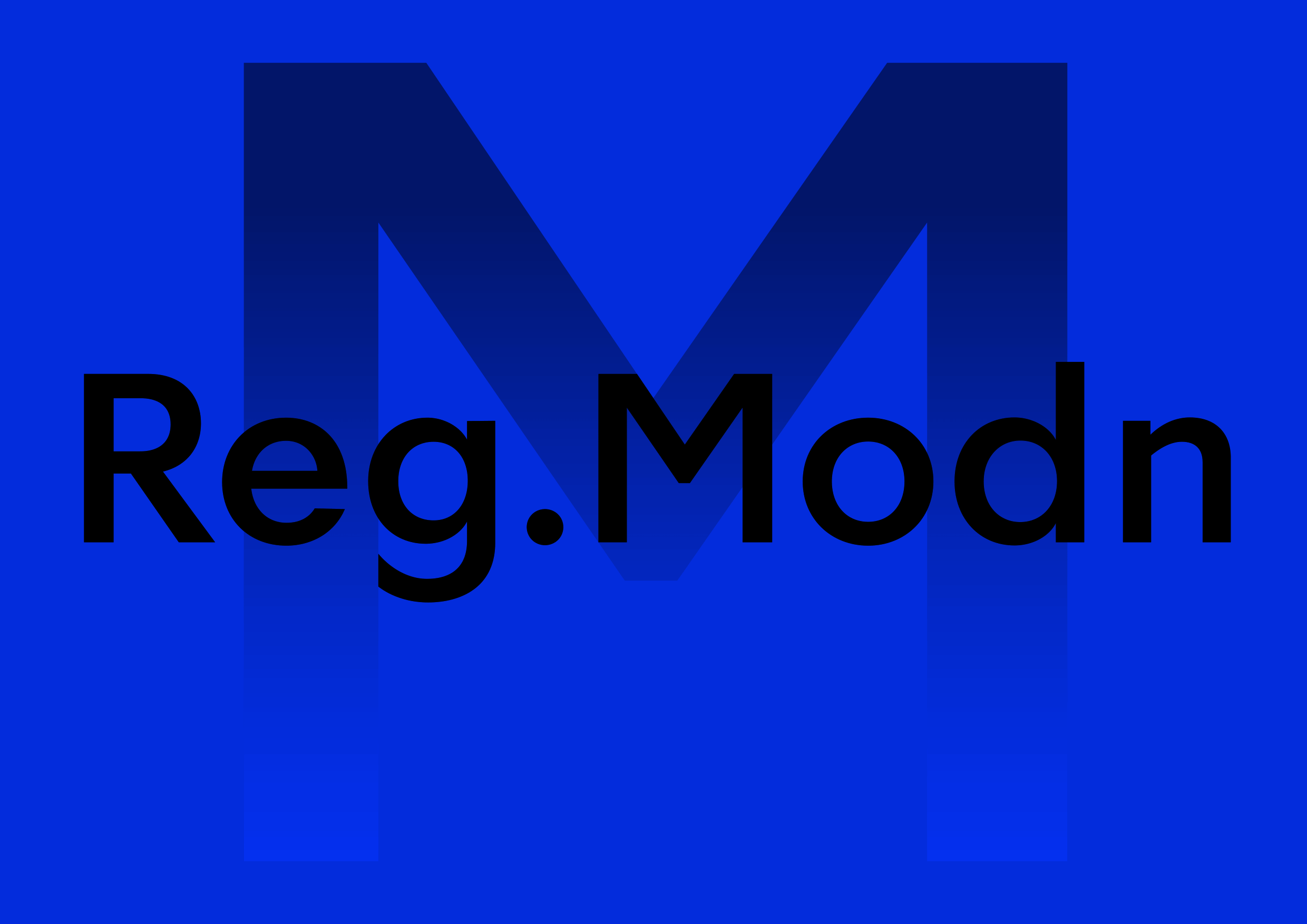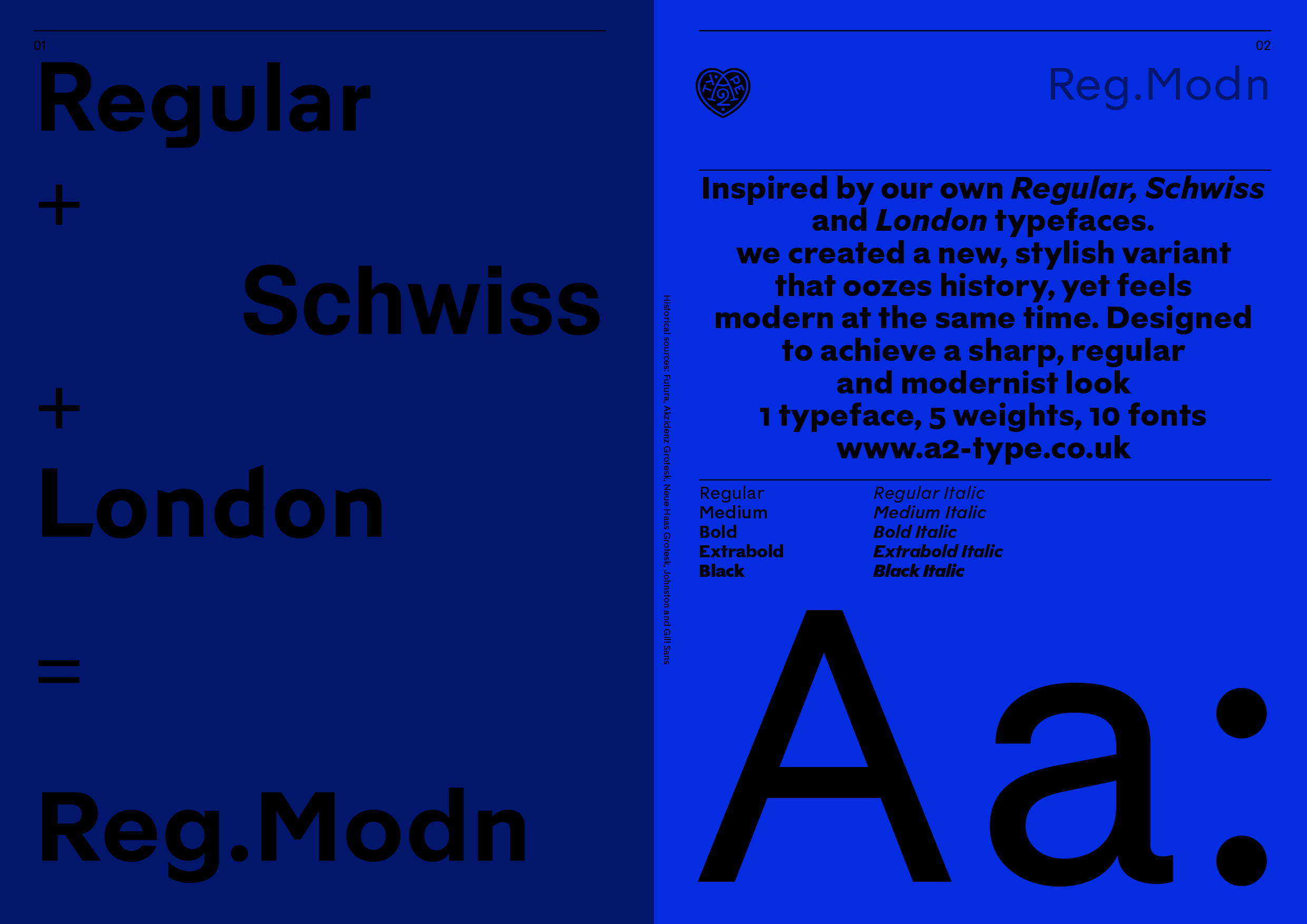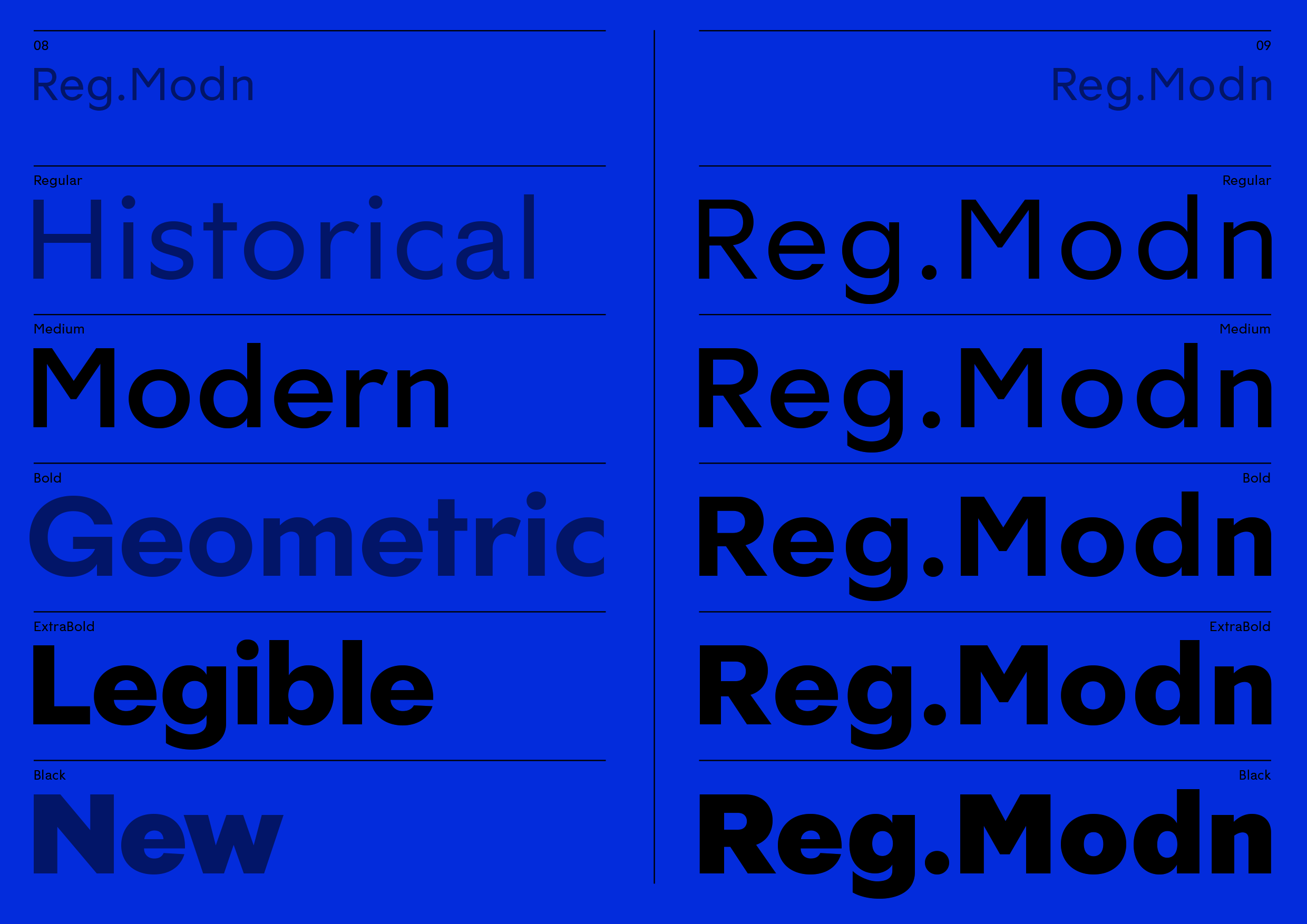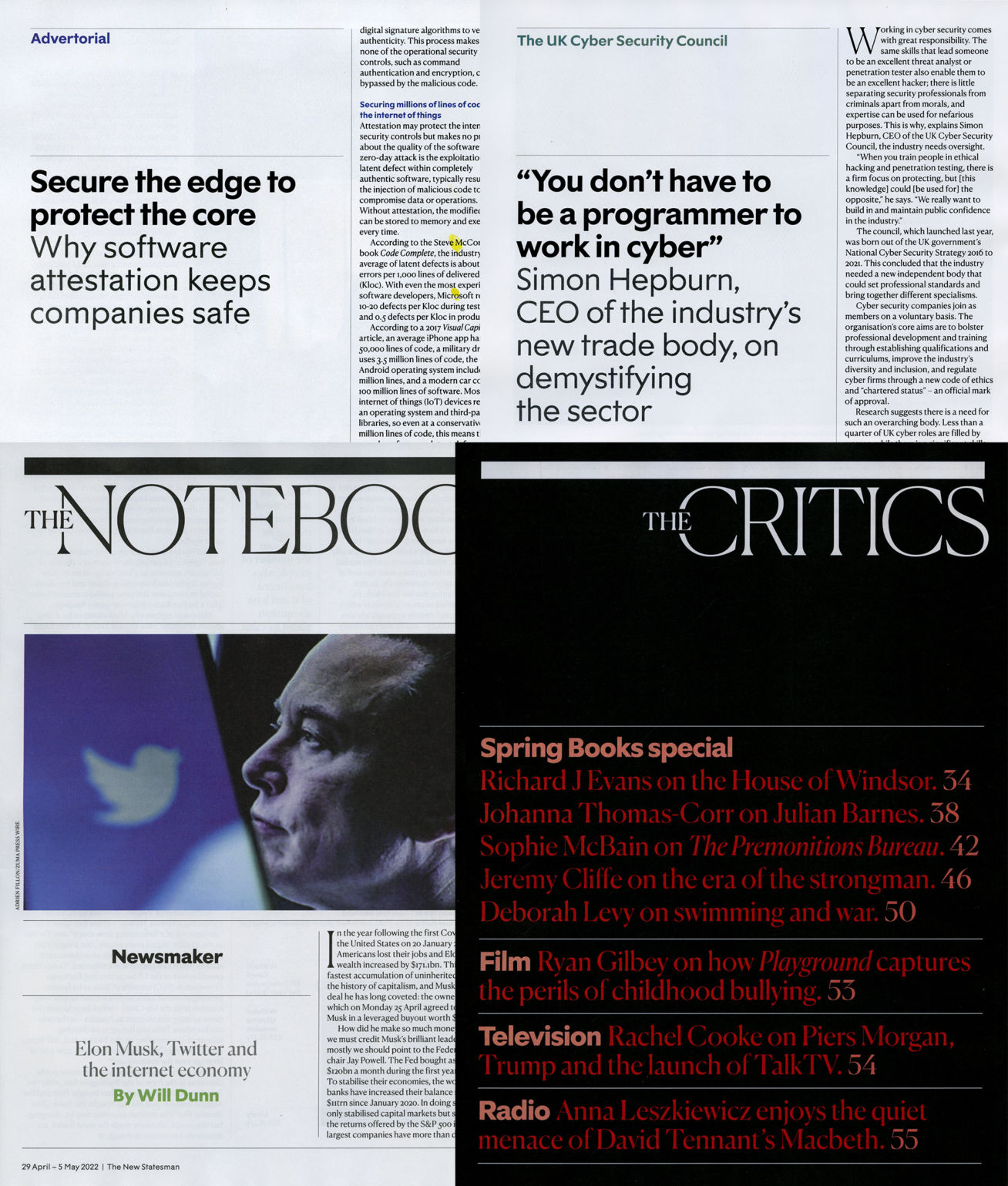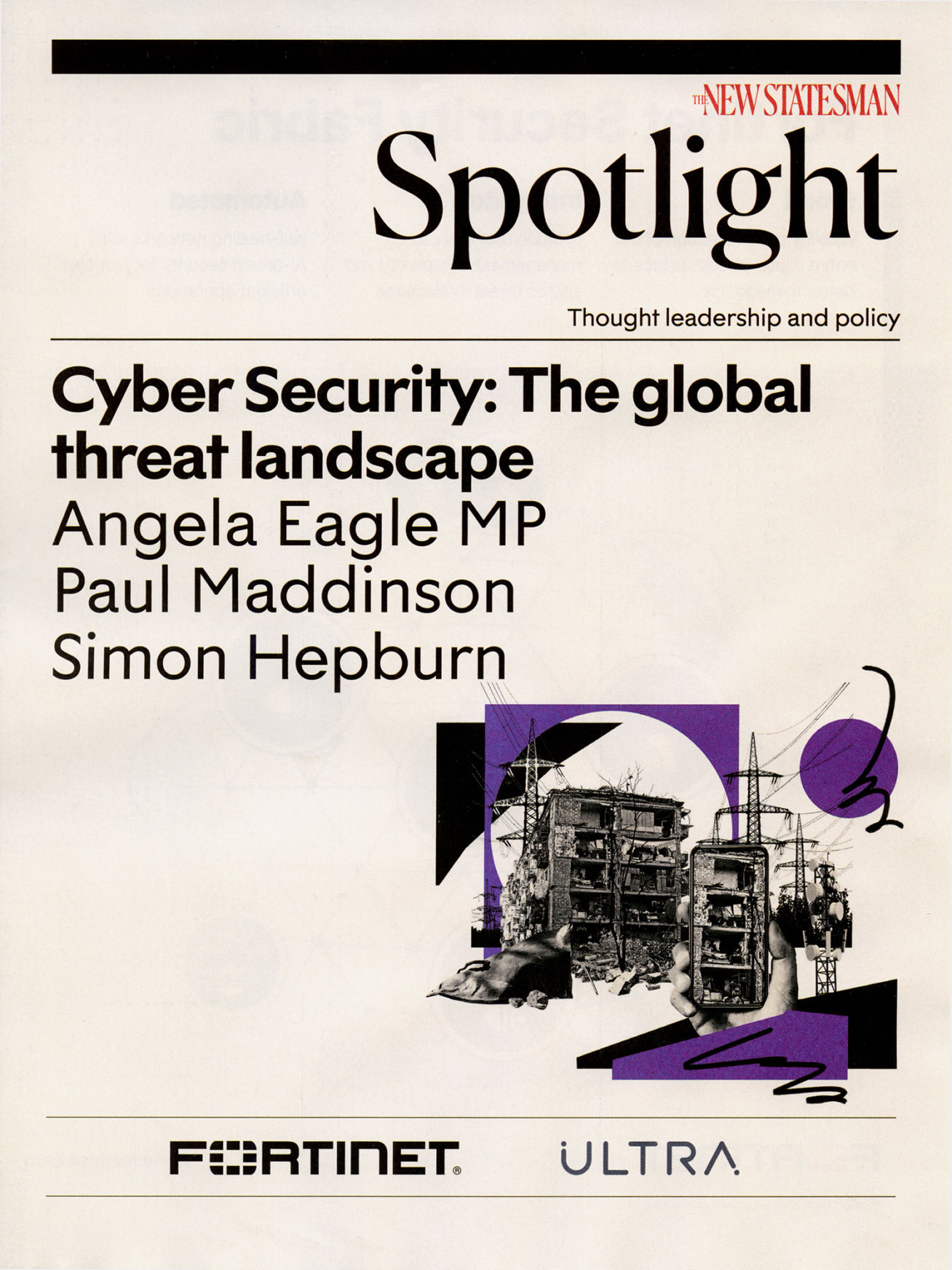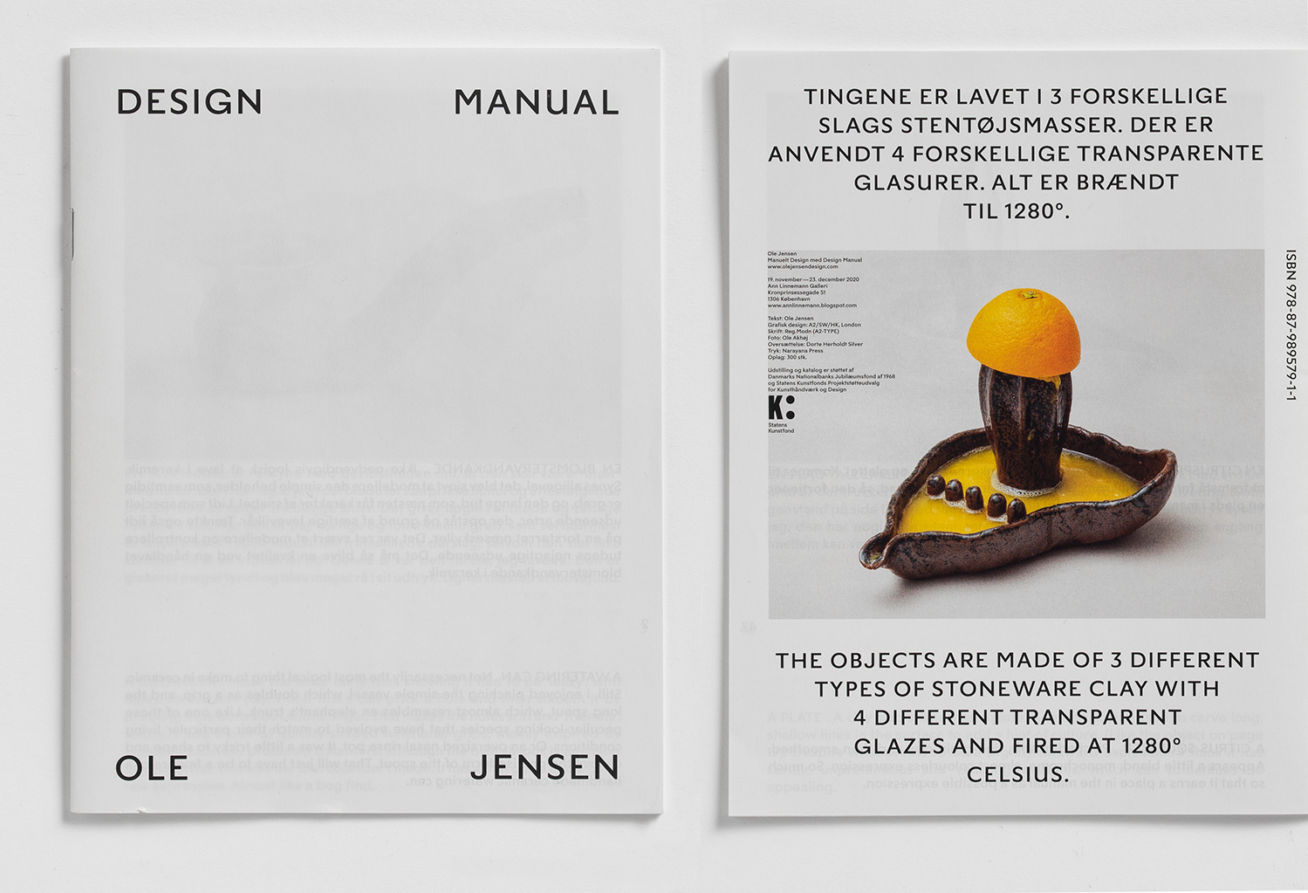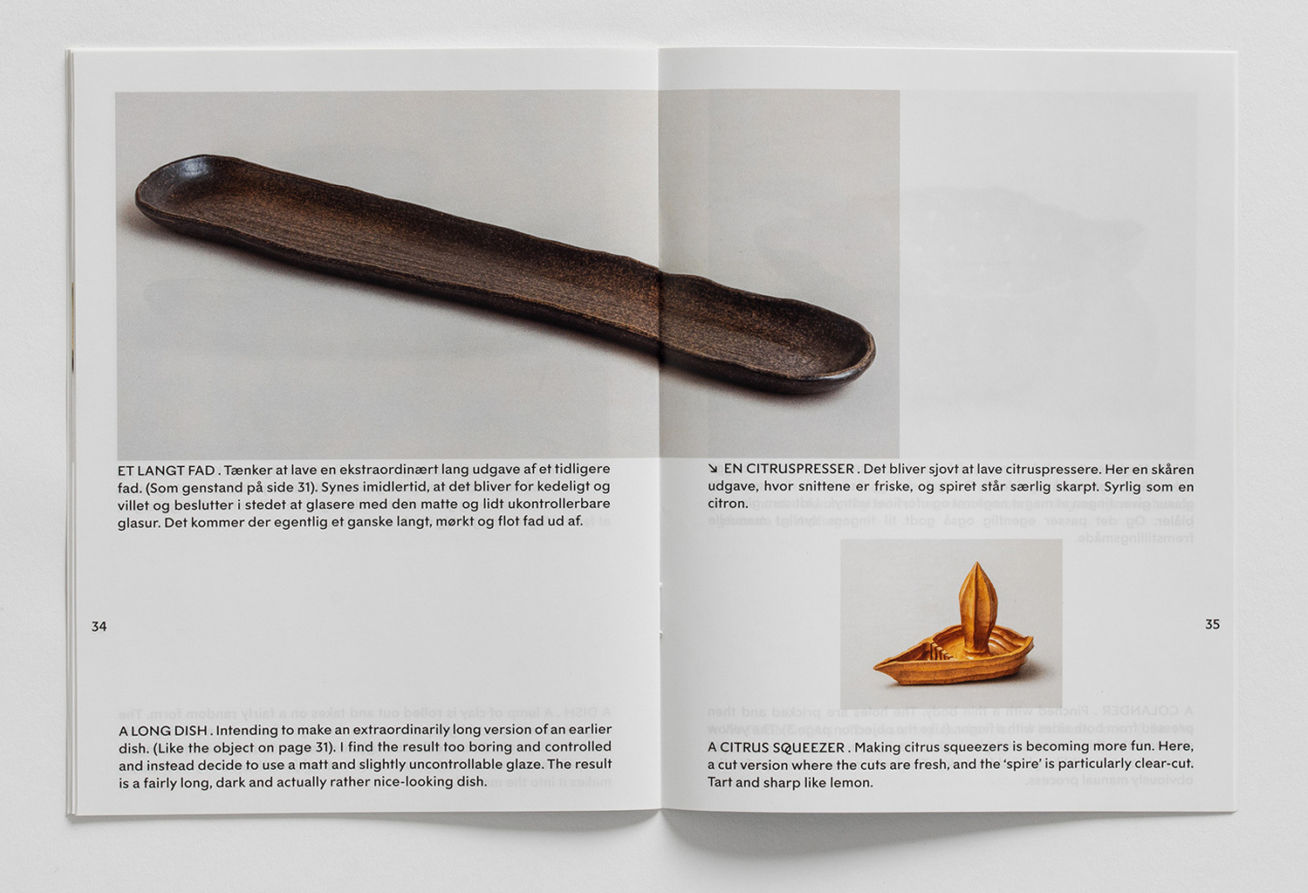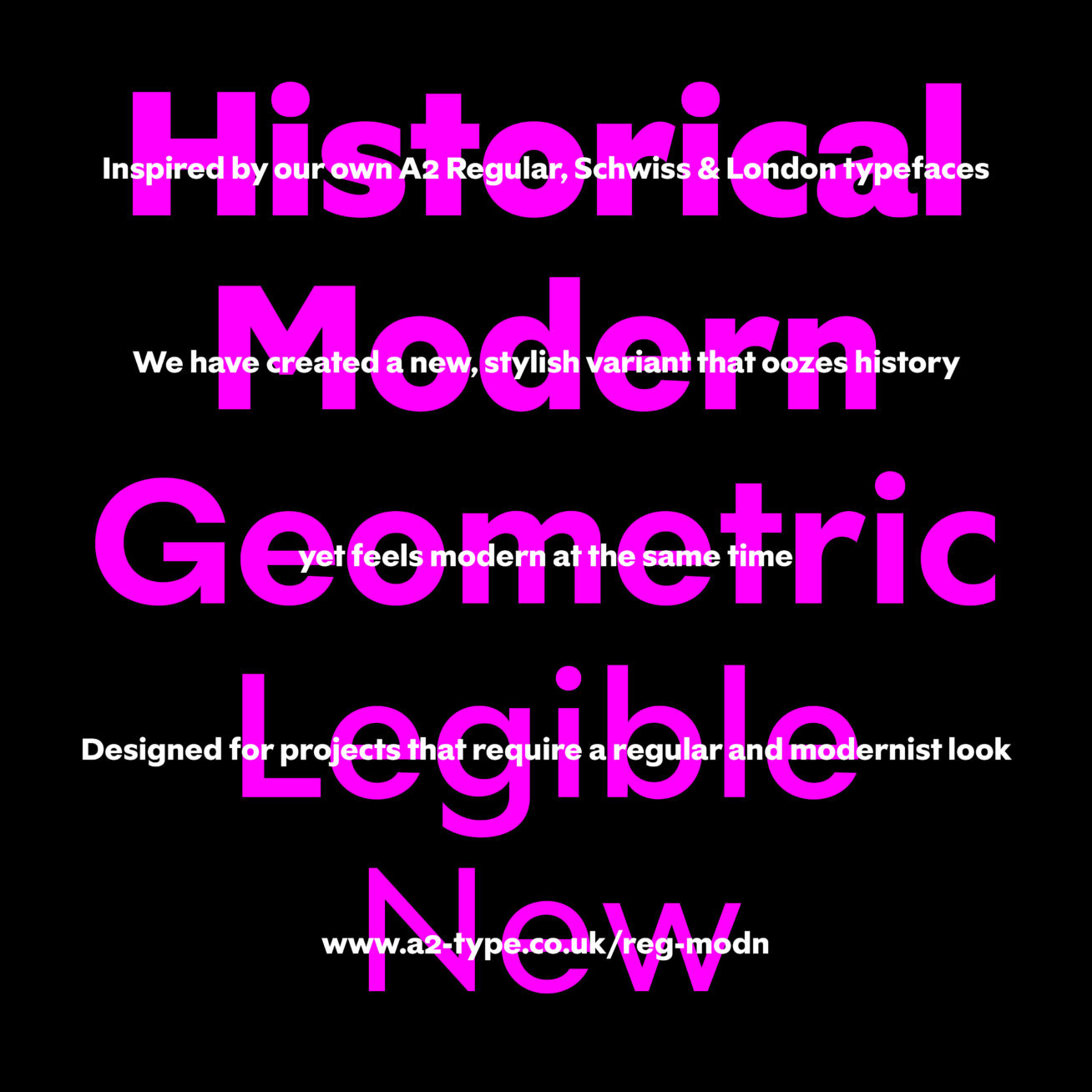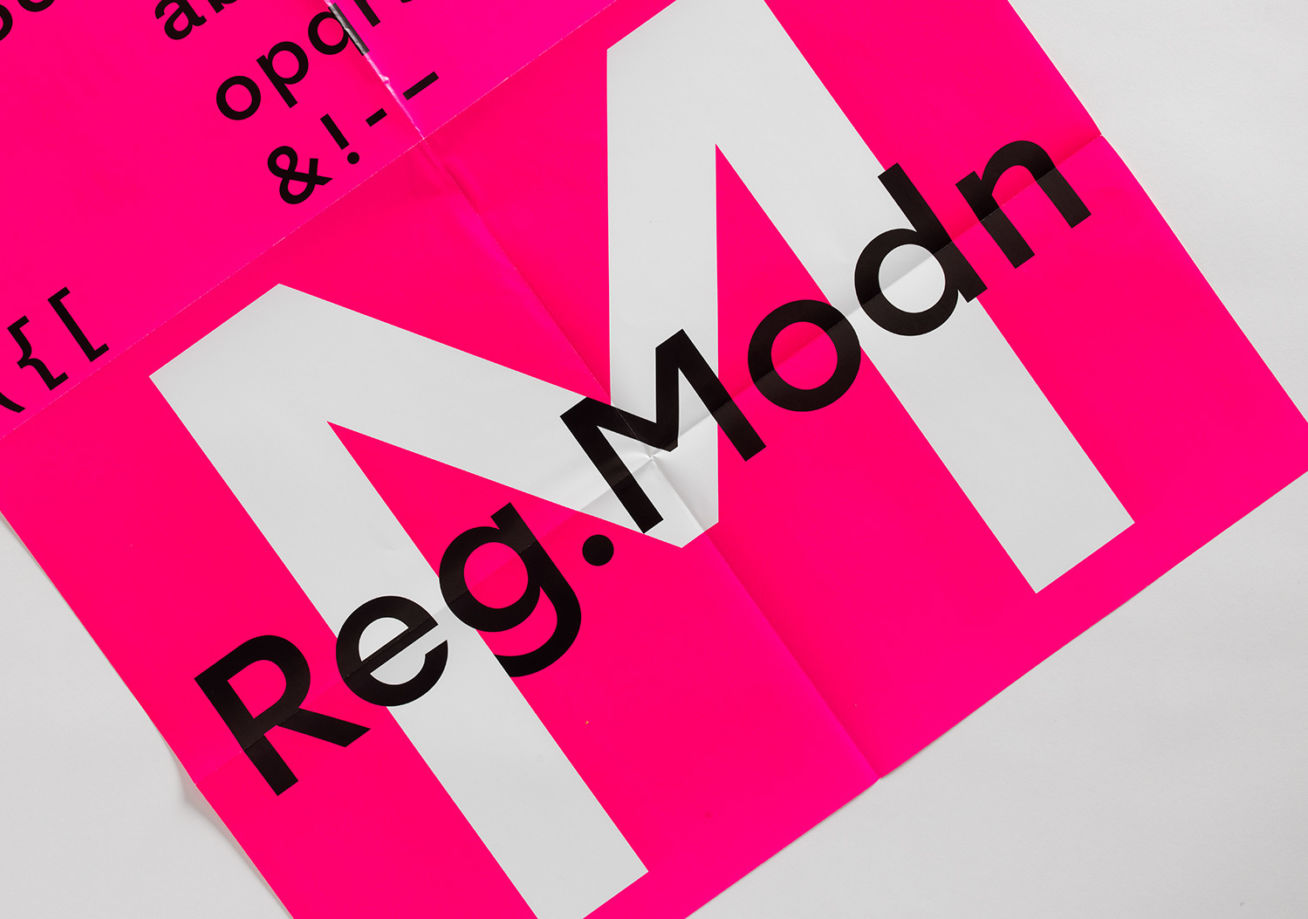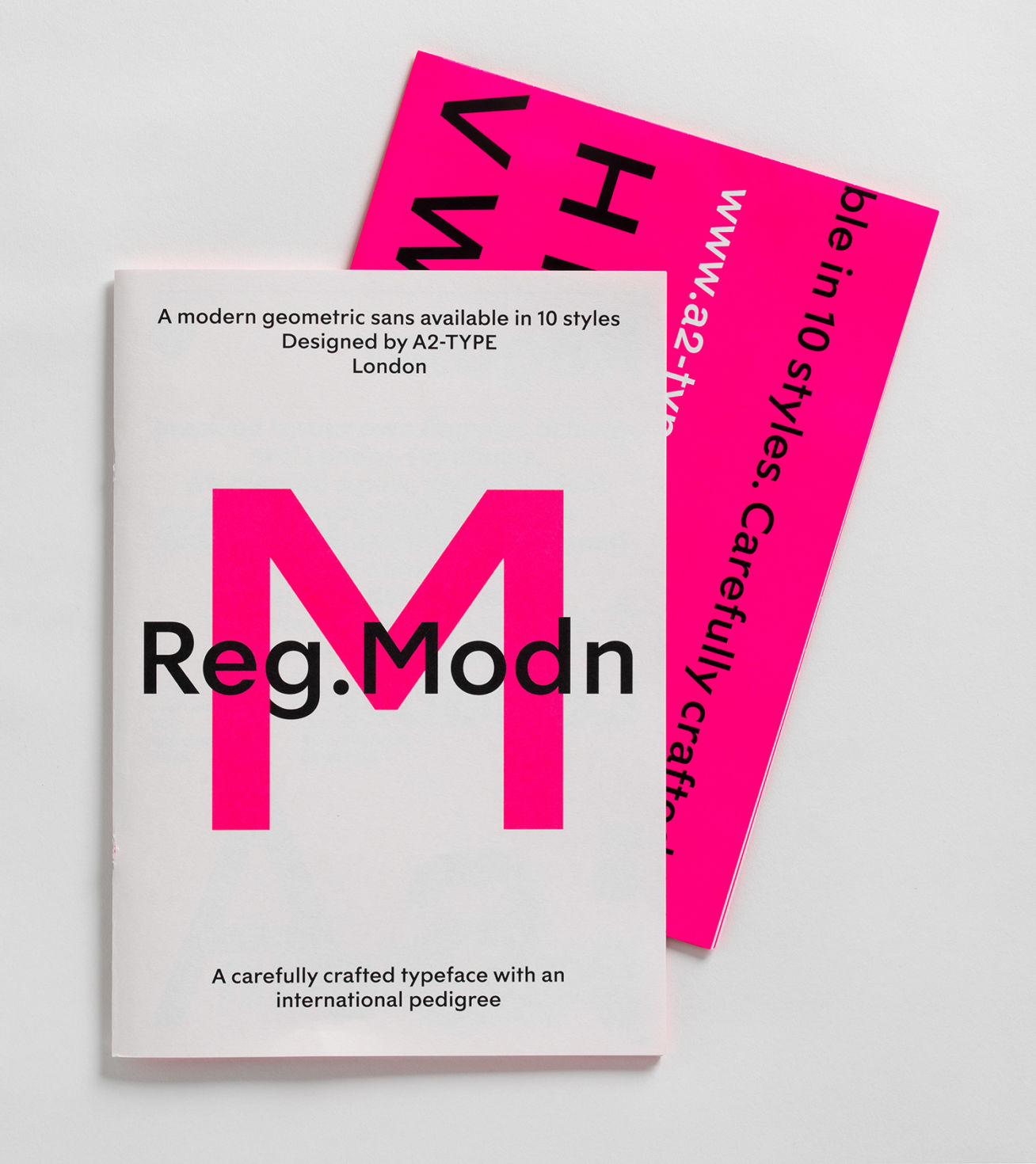
Reg.Modn — Historical, Modern, Geometric, Legible — is inspired by our Regular, Schwiss & London typefaces. We created a new, stylish variant that oozes history yet feels distinctly modern! Variable fonts are now available for both Roman and Italic styles and include the predefined weights; Regular, Medium, Bold, ExtraBold and Black, and everything in-between. The variable font format [ GX / TTF ] is ideal for designers working on digital platforms who are seeking to use a complete, all-encompassing font system.
| Font name: | Reg.Modn |
| Font category: | Sans |
| Styles: | Regular Italic Medium Medium Italic Bold Bold Italic ExtraBold Italic Black Black Italic |
| Script: | Latin |
| Manufacturer: | A2-TYPE |
| Designer: | Henrik Kubel |